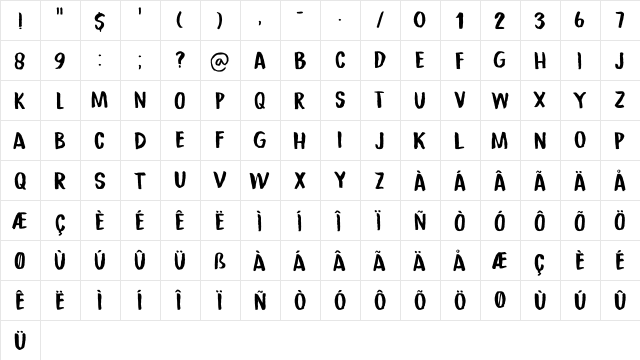
Republica Banana DEMO Regular
| Foundry | David Kerkhoff |
| Designer | David Kerkhoff |
Design Context for Republica Banana DEMO Typeface
Republica Banana DEMO is a composed and adaptable typeface that performs quietly and consistently across a wide range of design contexts.